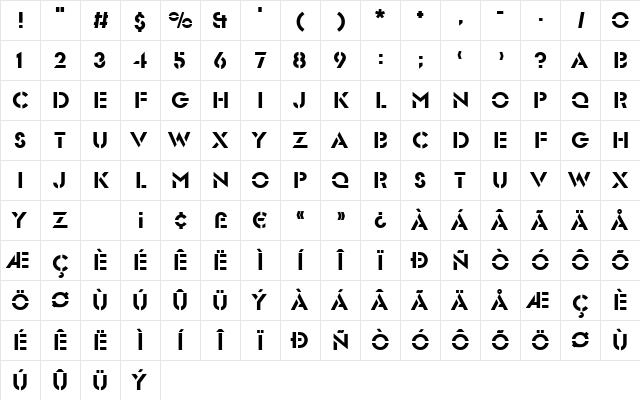
Deco-G760 Regular
Design Context for Deco-G760
Deco-G760 is a composed and adaptable typeface that performs quietly and consistently across a wide range of design contexts.
Pro Tip: Use Deco-G760 in both headline and body roles to test its range before committing to a single application.